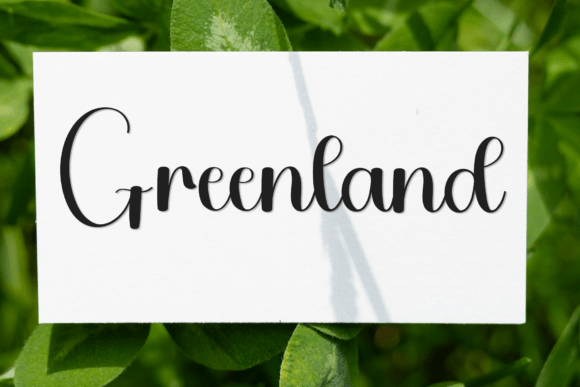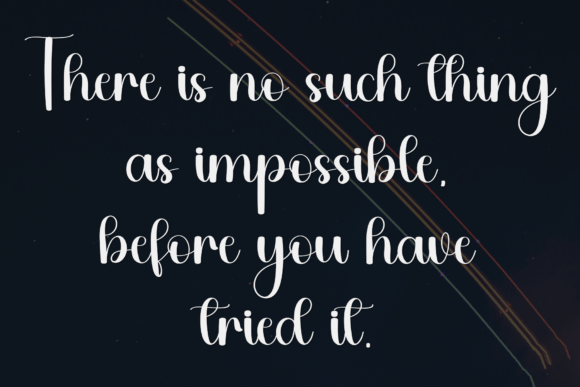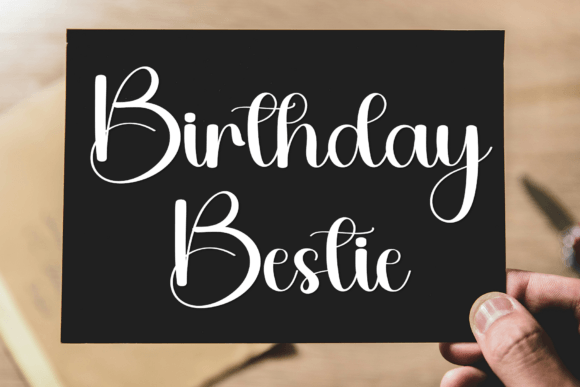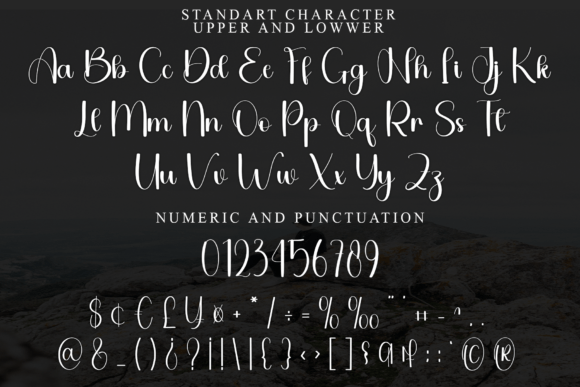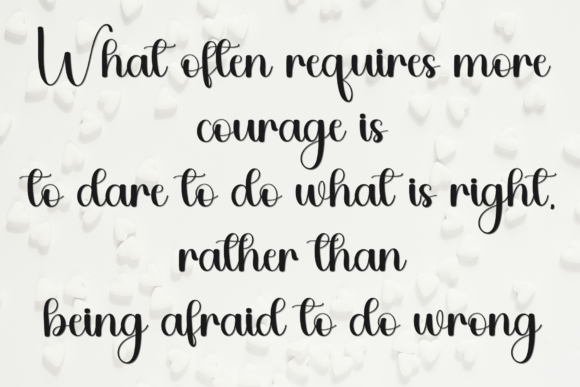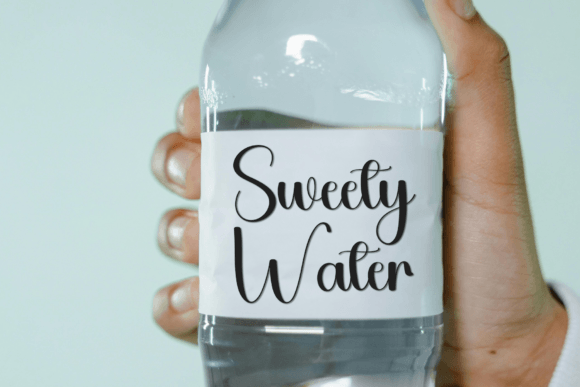
Introducing Change Font: Elevate Your Designs with a Unique Touch
Are you tired of using the same old fonts in your designs? Look no further! Change font is here to revolutionize the way you approach typography. This beautiful and eye-catching font is designed with a soft, unique touch that will make your designs stand out from the crowd. With its distinctive strokes and special character, Change font is the perfect addition to any design project, craft, or creative work.
The Beauty of Change Font
Change font boasts a distinctive and meaningful design that sets it apart from other fonts. Its soft and unique touch gives it a special character that will make your designs more appealing to a wide range of audiences. Whether you’re working on a graphic design project, crafting a handmade card, or creating digital art, Change font is the perfect choice. Its versatility and natural style make it ideal for use in various applications, including Windows and open-source platforms.
Key Features of Change Font
- Unique and distinctive strokes: Change font’s special character makes it perfect for designs that require a personal touch.
- Versatile and meaningful: Use Change font in a variety of design projects, crafts, and creative works.
- Wide range of characters: Change font offers a variety of characters to help you create unique and engaging designs.
Why Choose Change Font?
As a designer or crafter, you’re constantly looking for ways to elevate your work and make it more engaging. Change font offers a range of benefits that make it the perfect choice for your next project:
- Enhance your designs: Add a touch of elegance and sophistication to your designs with Change font’s unique and distinctive style.
- Appeal to a wide audience: Change font’s natural and versatile style makes it perfect for use across different artistic and creative fields.
Using Change Font in Your Designs
Change font is perfect for a wide range of design projects, including:
- Graphic design: Use Change font in your graphic design projects, such as brochures, posters, and business cards.
- Crafts: Add a personal touch to your handmade crafts, such as cards, scrapbook pages, and DIY projects.
- Digital art: Incorporate Change font into your digital art, such as illustrations, paintings, and mixed media.
Tips and Tricks for Getting the Most Out of Change Font
To get the most out of Change font, try the following tips and tricks:
- Experiment with different sizes and colors: Change font’s unique style is versatile and can be used in a range of sizes and colors.
- Combine with other fonts: Pair Change font with other fonts to create a unique and eye-catching design.
- Use in conjunction with images: Incorporate Change font into your designs with images to add an extra layer of depth and interest.
Change font is a game-changer for designers and crafters looking to elevate their work and add a unique touch. With its distinctive strokes, versatility, and compatibility with various applications, Change font is the perfect addition to any design project. Whether you’re working on a graphic design project, crafting a handmade card, or creating digital art, Change font is sure to enhance your designs and appeal to a wide range of audiences.